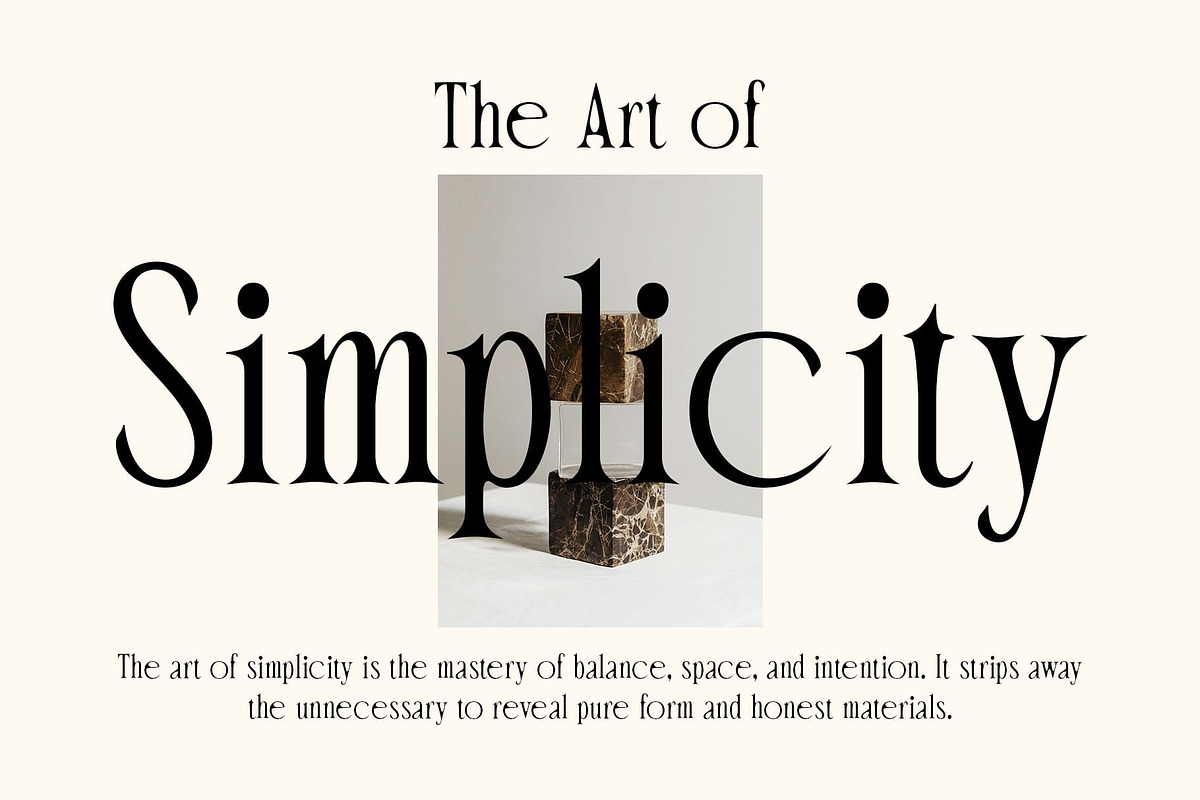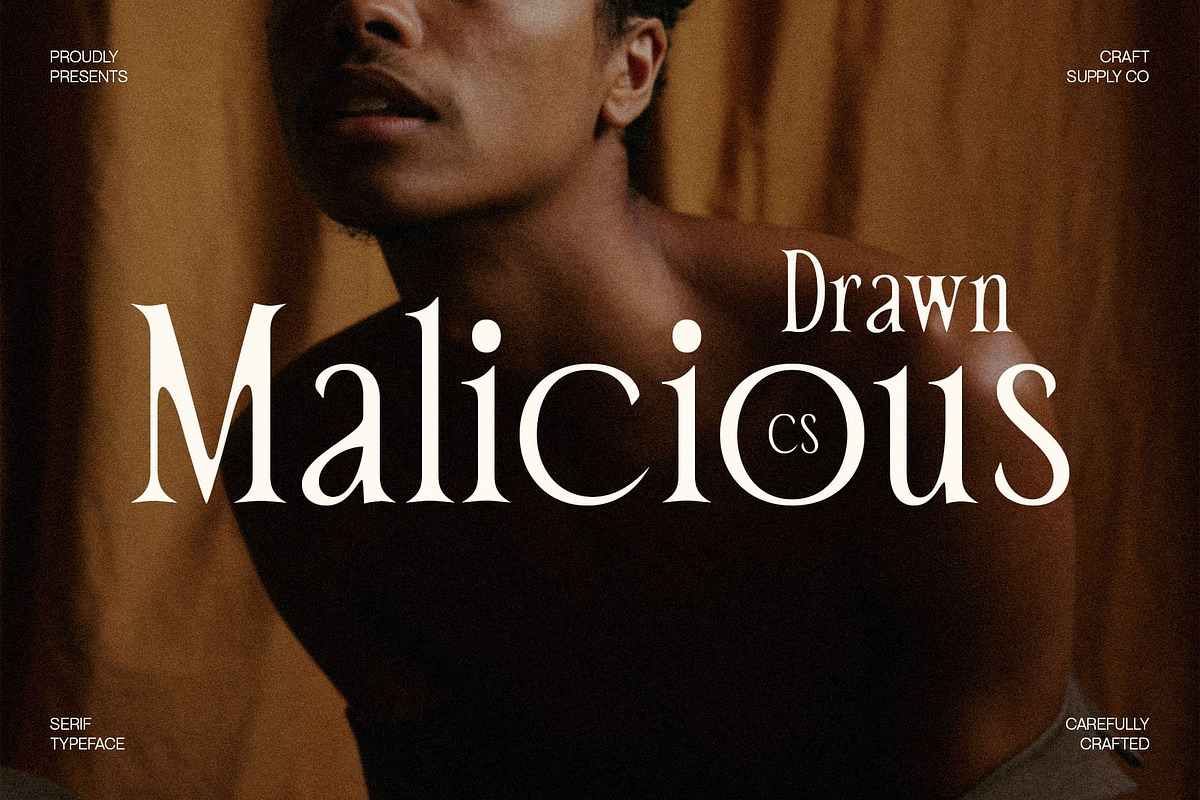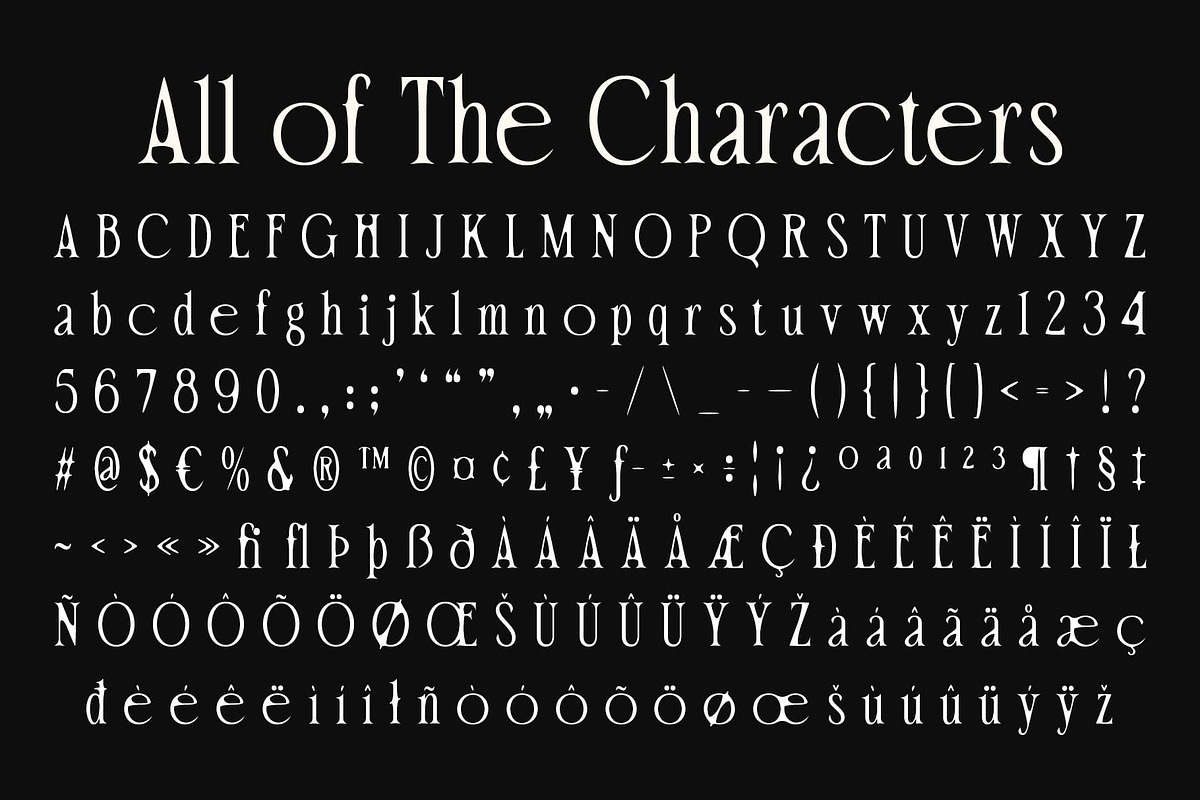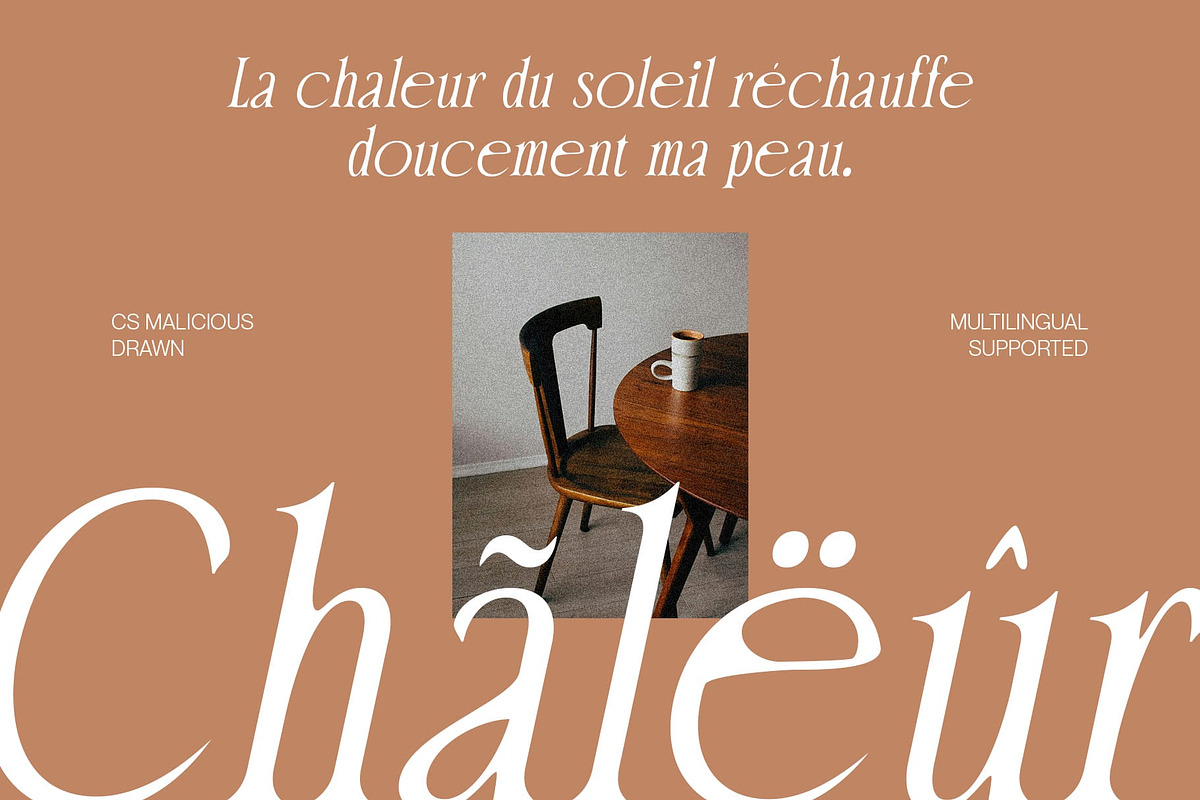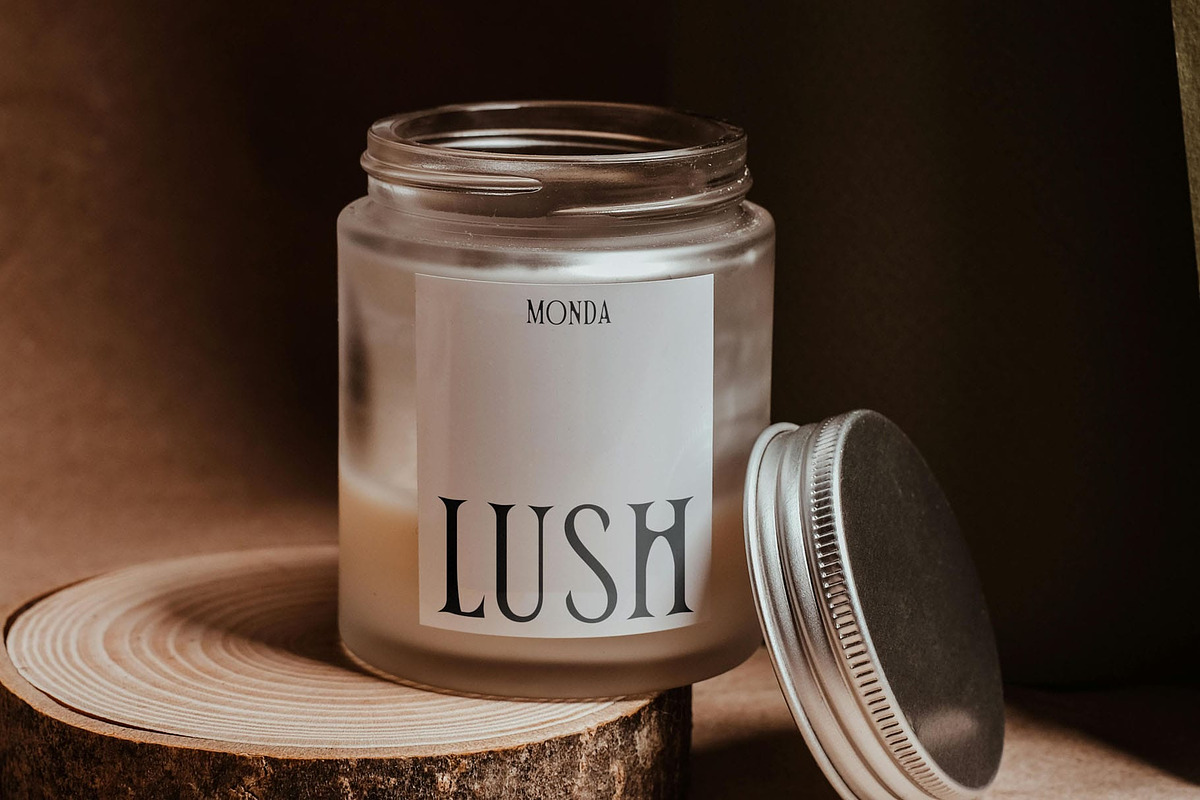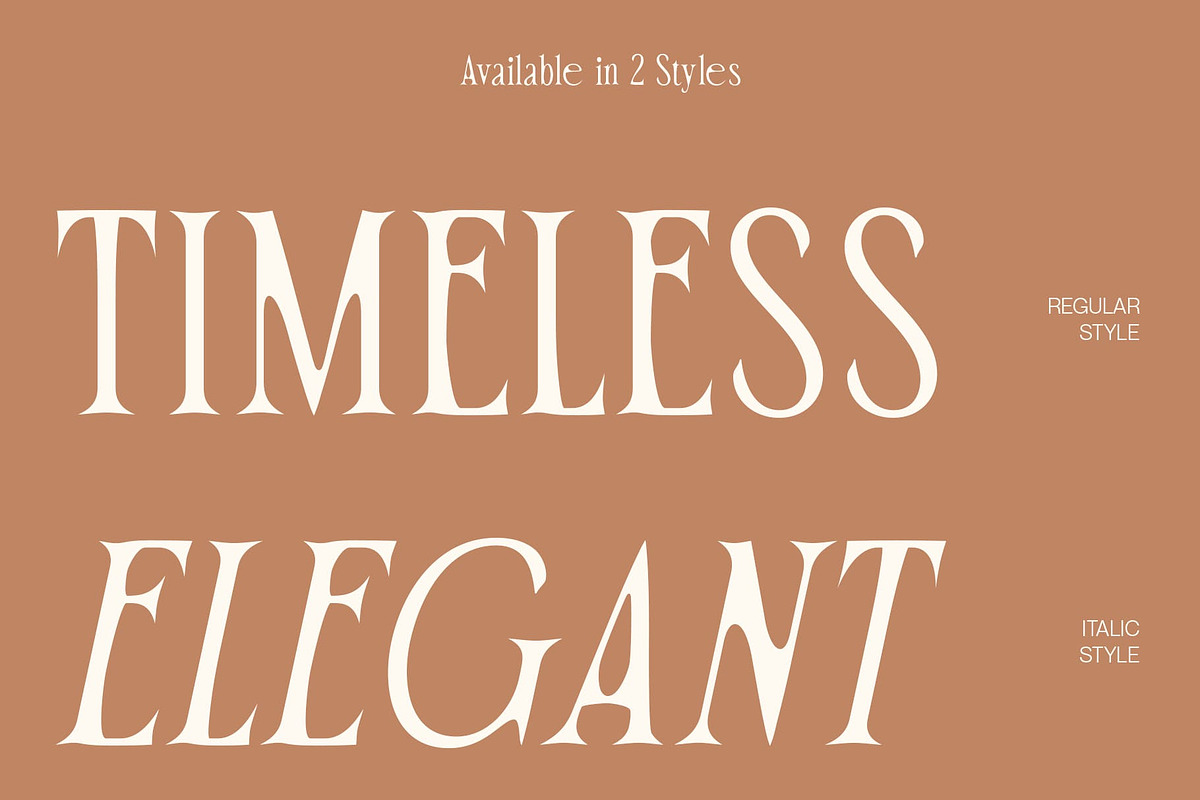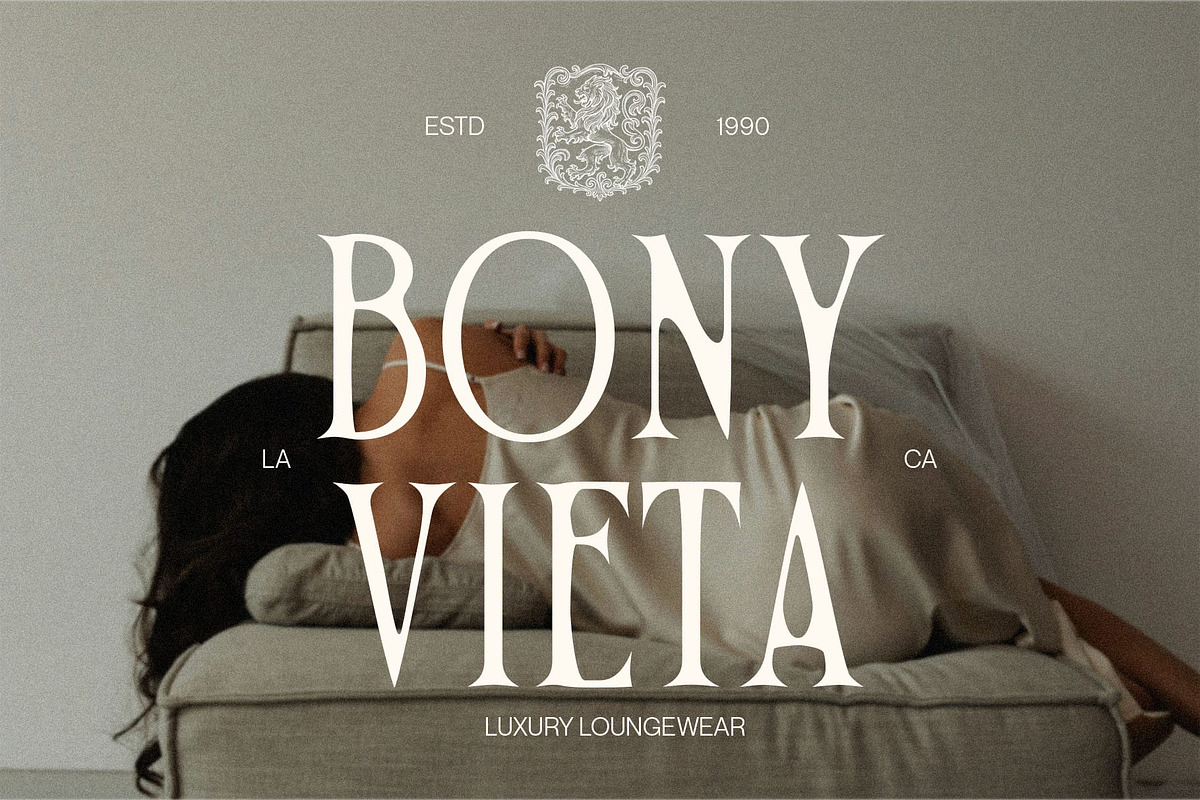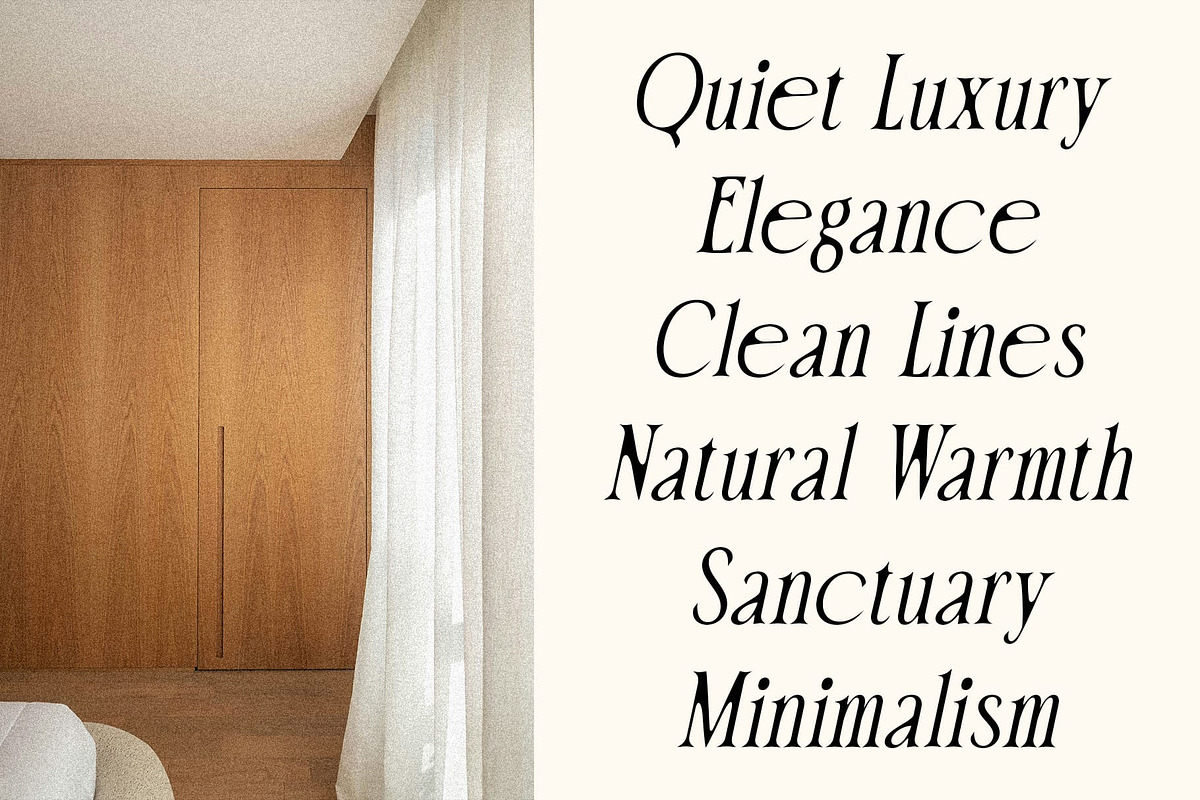
CS Malicious Drawn
CS Malicious Drawn – A Modern Serif with Artistic Elegance
Sharp Sophistication Meets Handcrafted Charm This is a modern serif font that blends sleek, clean lines with subtly stylish details. Its sharp serifs and refined structure convey elegance and professionalism, while the drawn effect introduces a handcrafted feel that adds personality and depth.
Artful Details for Expressive Design The drawn effect adds subtle irregularities and soft texture to the otherwise polished form, creating a perfect balance between structure and spontaneity. This artistic layer brings warmth and expression to the typeface, making it ideal for creative compositions with a refined edge.
Modern Luxury with a Personal Touch This artful sophistication font embodies the spirit of modern sophistication while retaining a warm, approachable tone. It’s a strong choice for projects that aim to be both upscale and creatively distinctive—ideal for fashion magazines, boutique branding, packaging design, and artistic invitations.
Versatile and Distinctive Designed to leave a lasting impression, this chic and approachable font works beautifully across editorial layouts, high-end campaigns, and expressive visual identities. Its elegant curves and hand-drawn finish give it a distinctive presence that elevates any design with a touch of luxury and artistry.
- CS Malicious Drawn Regular
- CS Malicious Drawn Italic